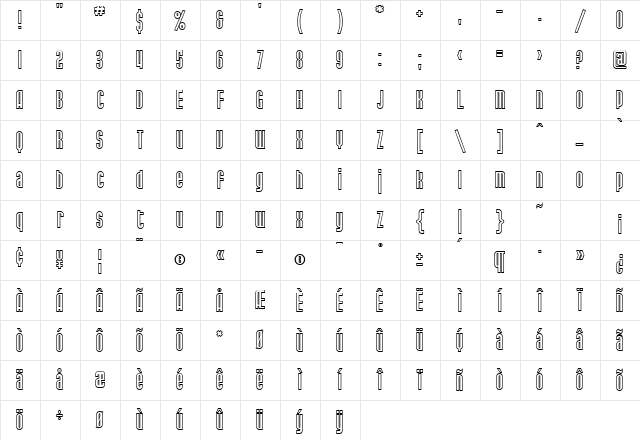
SF Port McKenzie Outline Regular Free Font
SF Port McKenzie Outline Regular
Design Context for SF Port McKenzie Outline
SF Port McKenzie Outline is built around its visual character rather than neutral utility - its distinctive forms are designed to make an impression at display sizes.
Font Pairing: Pair with a clean neutral sans-serif for body copy to let SF Port McKenzie Outline's character lead without overwhelming the composition.
Pro Tip: Use SF Port McKenzie Outline exclusively at display sizes - it was designed to be seen, not read at length. Let a neutral companion handle body copy.